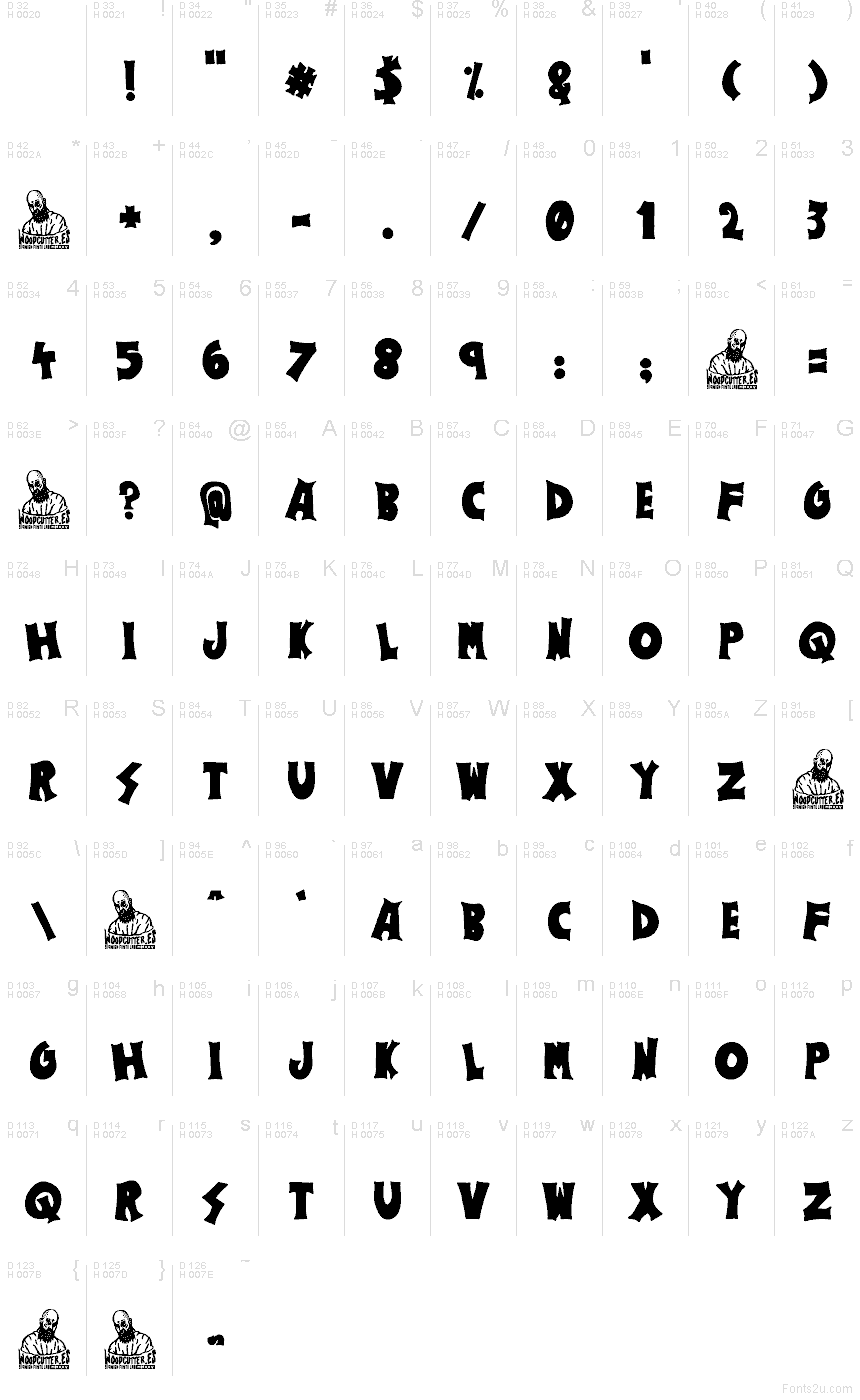
Mexican Brotherhood Black
Mexican Brotherhood Black by Woodcutter Manero is a free Mexican display font with a bold, hand-cut poster spirit. The letters feel carved and slightly unruly, with pinched joins, flared ends, and a wavy silhouette that gives the whole font a folk-art, cantina-sign mood rather than a slick revival.
It fits tequila labels, festival posters, restaurant branding, themed packaging, and album or film title cards where that rough celebratory voice matters. As a free font, it also works well for short headlines, cover lines, and monogram-style initials, because the jagged rhythm and chunky shapes carry a lot of character in just a few letters.